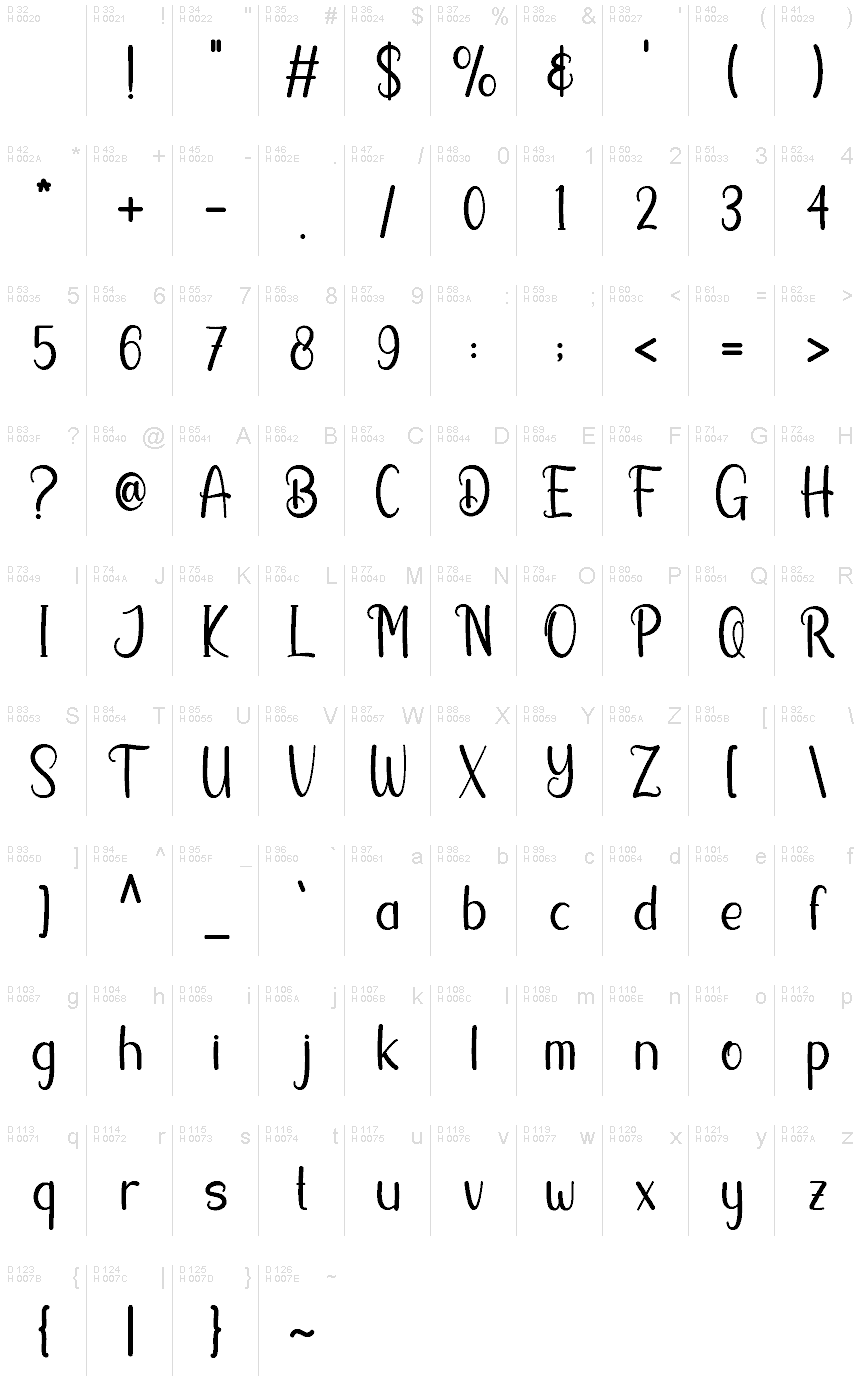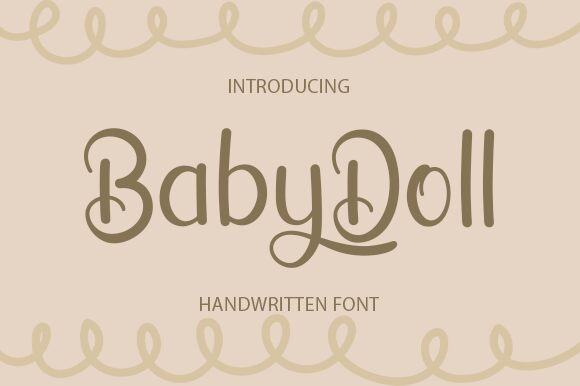
Baby Doll
Baby Doll font by Nirmala Creative is a handwritten typeface with a whimsical, retro-inspired design. Its decorative elements, elegant curves, and friendly aesthetic provide a distinctive and casual charm that can enhance various projects. This free handwriting font combines both fun and playful character for an eye-catching appearance.
Elevate your product packaging and labeling designs across food products, clothing tags, makeup brands, small businesses, or even holiday gifts packages where Baby Doll would fit perfectly. Other uses include greeting cards for anniversaries or birthdays as well as magazines and newsletter titles.